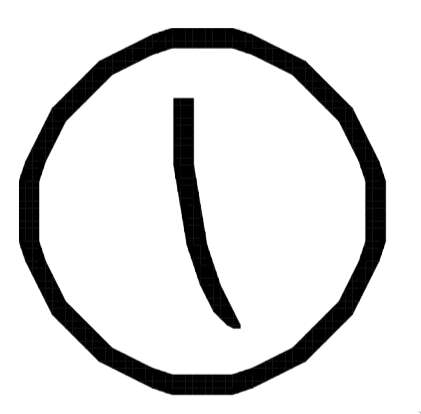
• When my mother was young (and specially after my birth) she supplemented the family's income from home by typing for students and businesses. When I was a student I used the same machine for my assignments, lesson plans and thesis. The years were not kind to the machine, the mechanics rusted or broke, the letters worn with frayed edges or disintegrating serifs and fine lines. Ruth's typewriter is a declaration of my appreciation of many years of service the brave little machine gave... As you can see I clearly didn't get the letters repaired ;) The font looks like I rearranged and glued down what was left of the raised surfaces, to continue using the typewriter and give my words a very modern look ;)) A "grunge-writer" ?? Did you notice that no typewriters were ever sold with this kind of modern destructured typefaces?! ;)
Since I started this font many years ago (Ruth was very amused and appreciated this hommage) this work has now become a memorial to her
A unique font with a beautiful story
Thank you, time-peace. And: it was a beautiful little machine, not chunky, very feminin - but maybe I thought that because the make was "Erika"
Uppercase I looks broken to me
@mgUdit yes that's the point. it's supposed to be broken
@mgUdit: you're almost right. May I test a selection of your UC "i" suggestions that match better the feeling of the rest of my font?  My UC "i" is not just broken but positively disintegrating :´(
I think something like this might work well (it's just parts of J).
@mgUdit : thank you for the suggestion. I've followed it -- but I split the glyph to follow the idea of distortion-breaks.
Congratulations Aeo, the new I looks much better to me (the first one was too fragmented and interrupted the flow of the rest of the font, IMHO).
Thank you elmo, mgUdit was right. I was too destructive on the "i"
why does x look like a frown
for no reason it looks similar to the mcdonalds font
This looks like coins